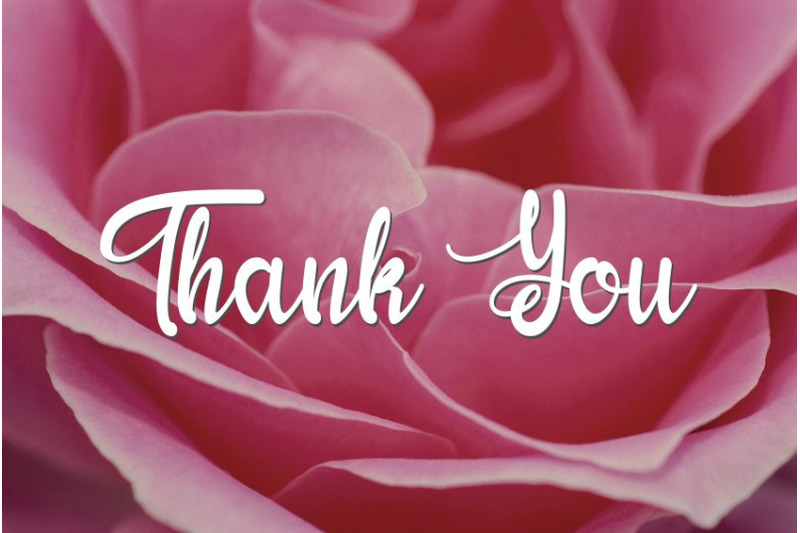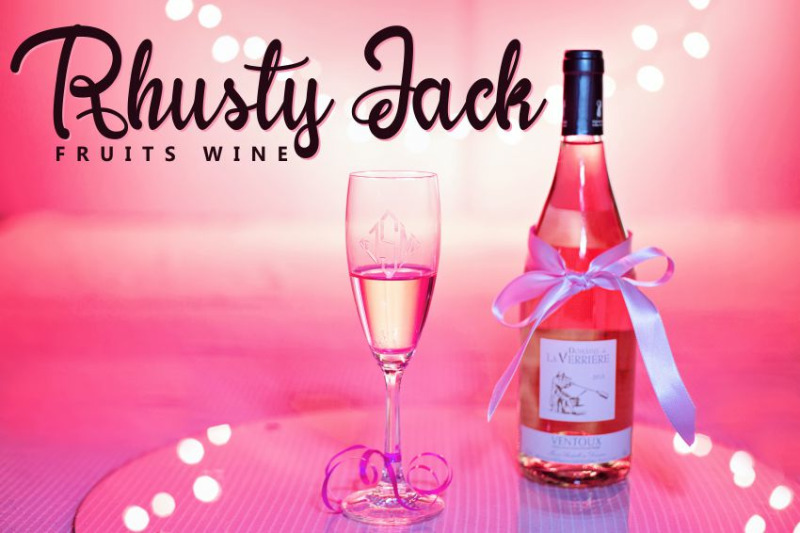
Yhulliantti Font
I am very happy, because my font has been released again introduce “Yhulliantti” why did I give the name “Yhulliantti”, a cute, beautiful font that made me inspired by my beautiful friend. hhe ..
This font displays uppercase, lowercase letters, punctuation, numbers, multilingual, ligatures, and alternates